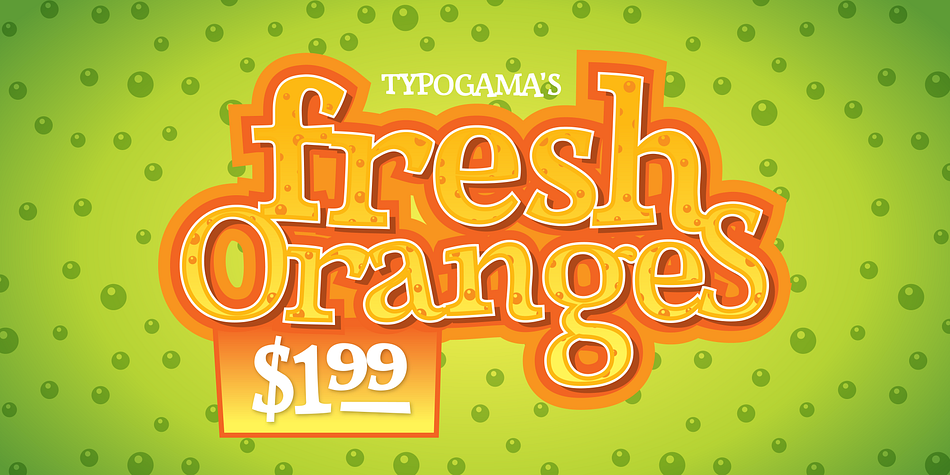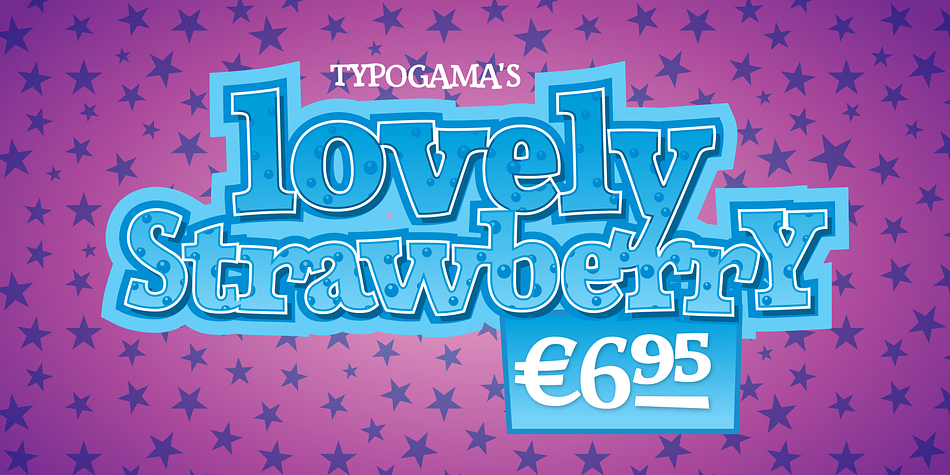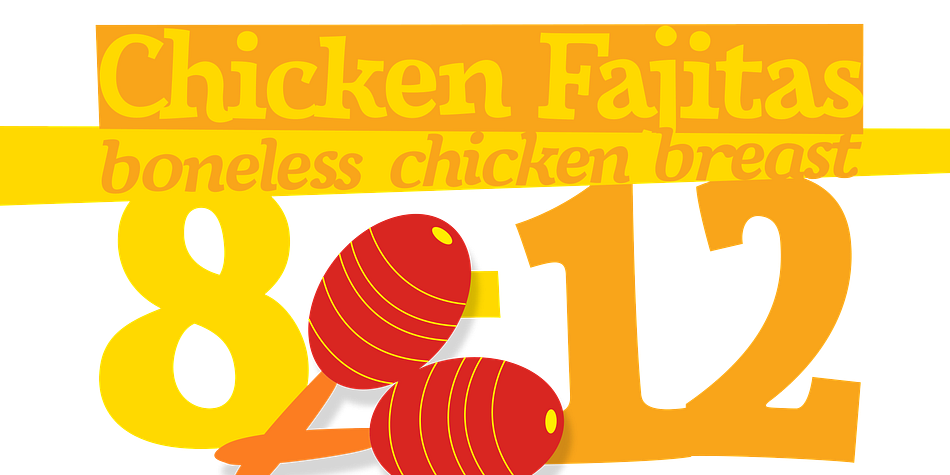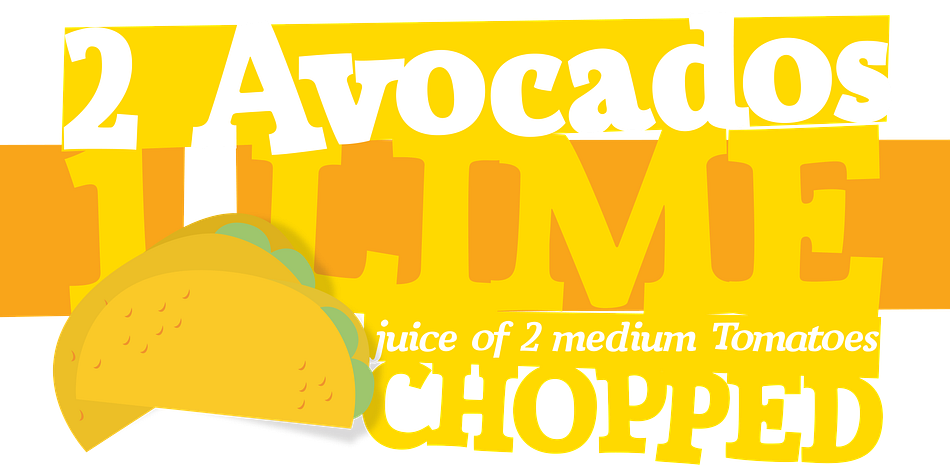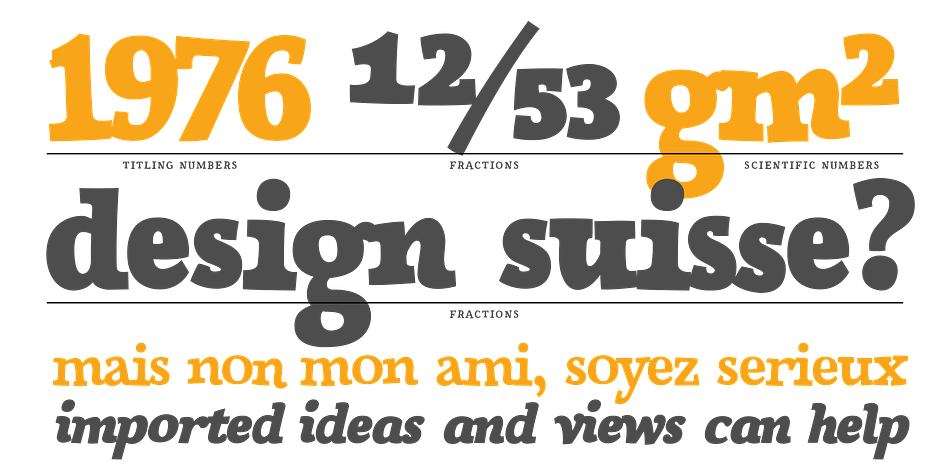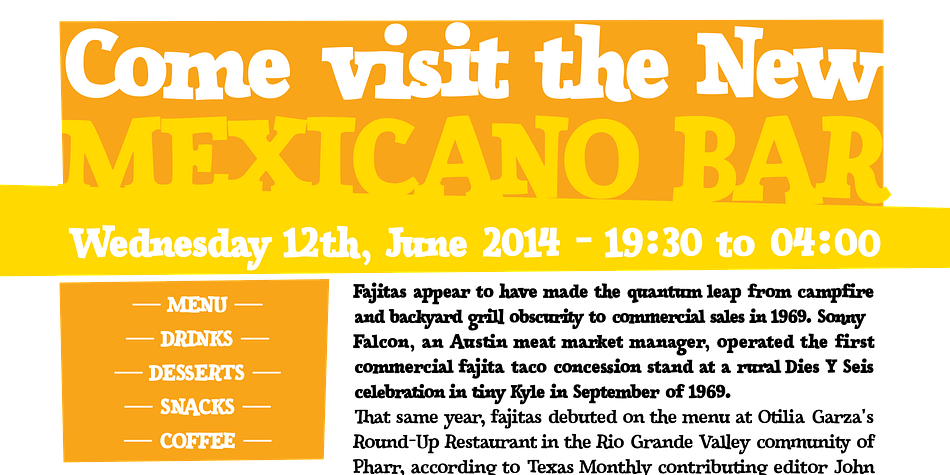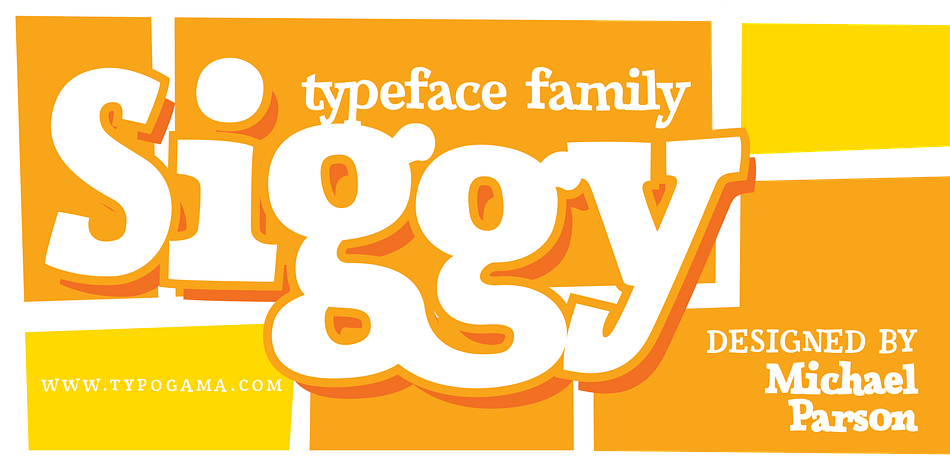
Designed by Michael Parson, Siggy is a display serif and kids font family. This typeface has four styles and was published by Typogama.
The Siggy typeface family has all the traits of a serious serif typeface, but with a little wobble. Originally created as a display typeface, this family of fonts contains 4 styles that allow varied and clear compositions in both text or display settings.
For an added twist, play with the Opentype features and watch how various letter combinations allow surprising substitutions through the use of alternate letters or ligatures.